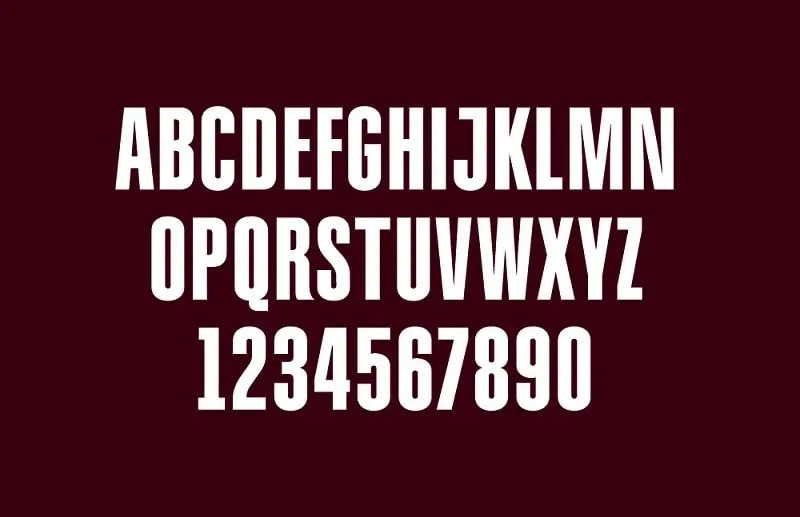
Hershey’s Font
With Hershey’s Font, this is a familiar sans serif typeface that was designed and published by Sharkshock Fonts along with a fancy gorgeous stylish look. It’s inspired by sport and city life. This groovy font is perfect for titles, logos, posters, headings, and more.
The Hershey’s logo is quite simple and may look bland and unattractive compared with other candy brands. The logo is the text “Hershey’s” in capitals set on the chocolate brown bar. The font is very similar to Swiss 911 Extra Compressed or Helvetica Extra Compressed.